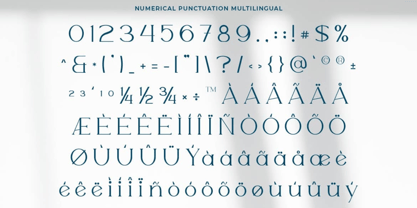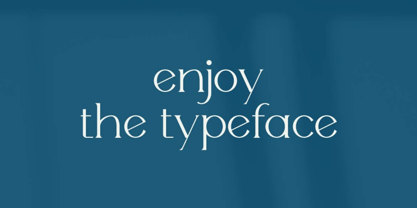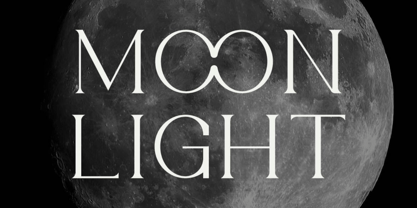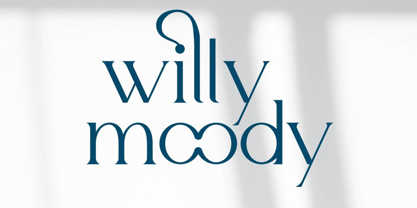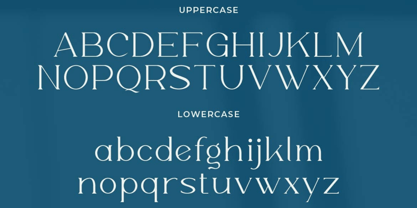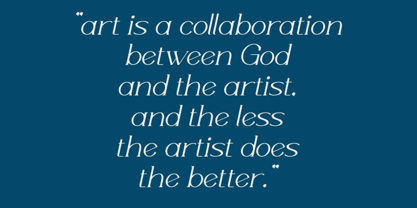
The Webmur Font Family was designed by Hasnat Khan and published by Hasnat Studio. Webmur contains 1 styles.
Webmur is a bold and expressive display font designed to make your message stand out. With a moody and modern aesthetic, Webmur adds attitude and personality to any design, making it a great choice for creatives who want to push boundaries.
Its clean structure and stylish ligatures make it perfect for bold headlines, edgy branding, minimalist posters, and standout social media content.
• Posters & promotional graphics
• Branding & personal logos
• Social media posts & content creators
• Album art, zines, and custom merchandise
• Editorial titles & creative projects
• Uppercase & lowercase letters
• Numerals & punctuation
• Functional ligatures
• Multilingual language support
• Stylistic alternates for creative customization
Webmur delivers strong visual presence with a moody twist. Whether you’re working on a bold personal project or a striking brand identity, this font brings modern impact with effortless style.